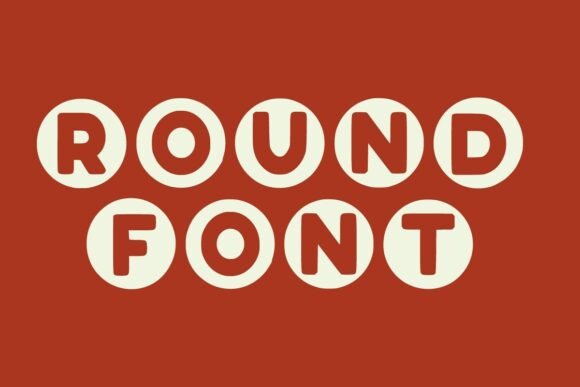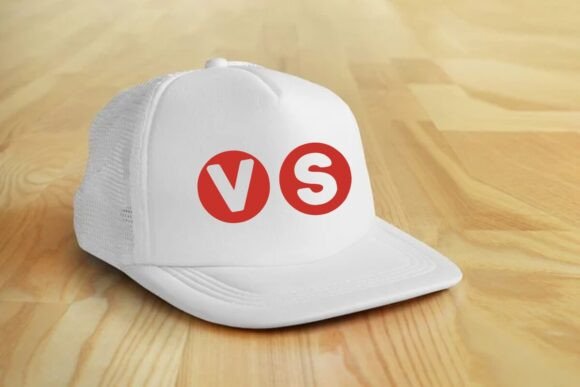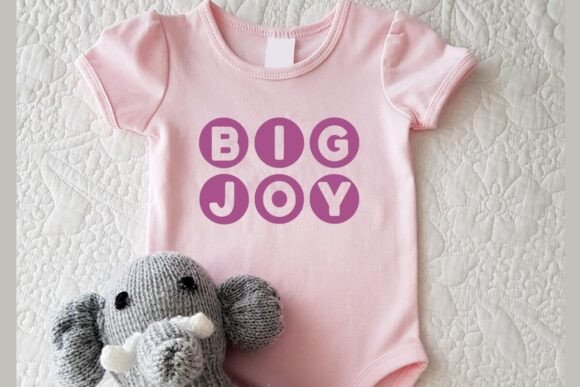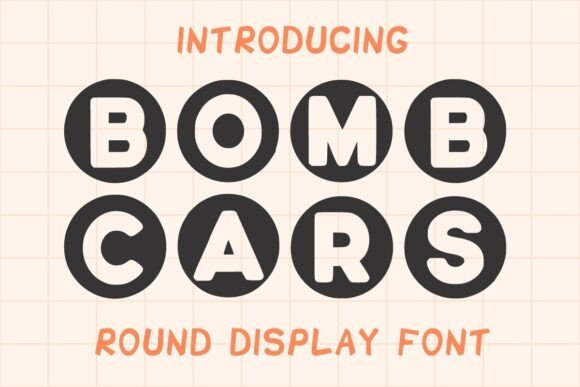
Introduction to Bomb Cars Font
Bomb Cars is a round and fun decorative font.
Add it to each of your promotions, price tag, logos, party invitations, or pretty much any design that requires a touch of youth and joy .